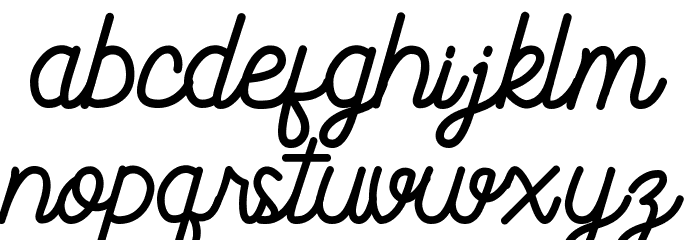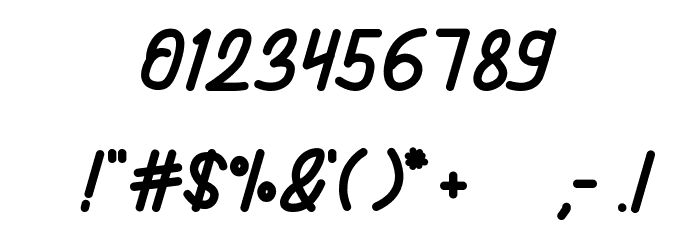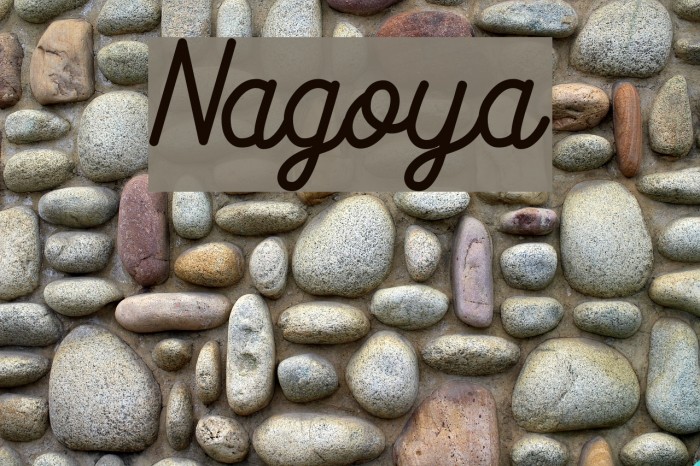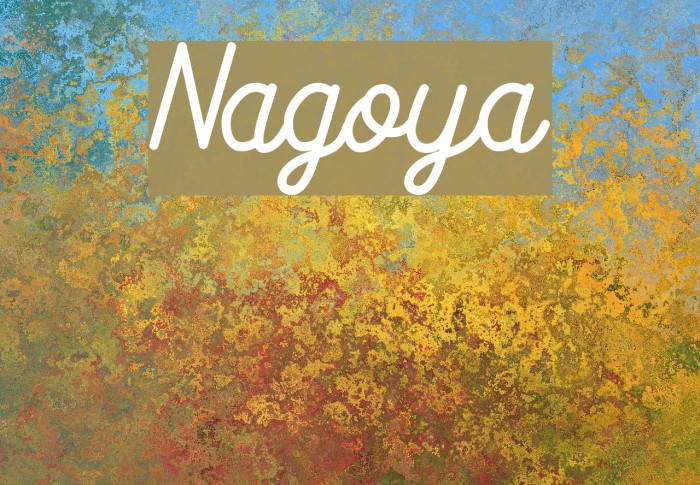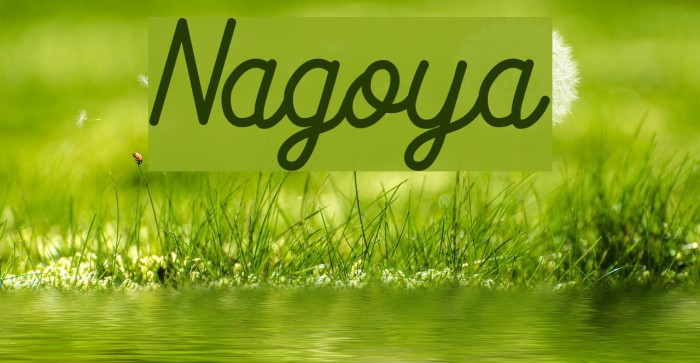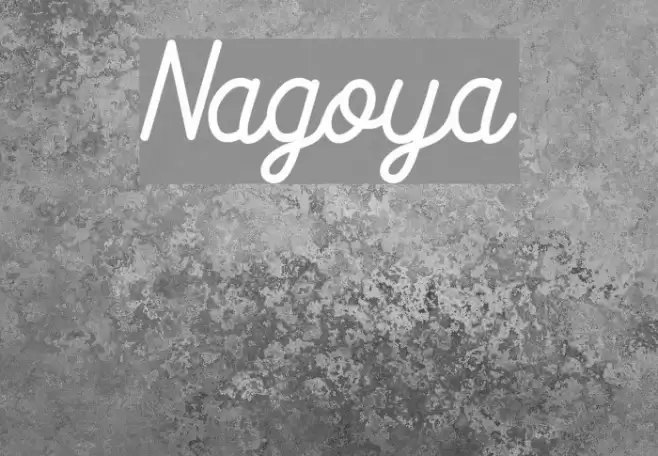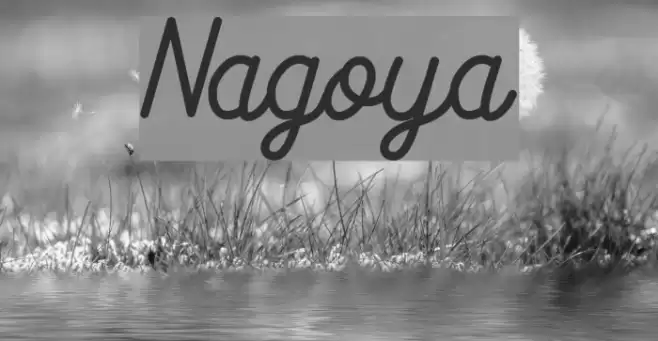
Nagoya Font
This font features a smooth, flowing script style that mimics natural handwriting. The characters are connected, giving it a cohesive and elegant appearance. The uppercase letters are slightly more formal, while the lowercase letters maintain a casual, friendly vibe. The numbers and special characters are consistent with the overall style, ensuring readability and aesthetic appeal. The strokes are uniform in thickness, providing a balanced look across all characters. This font is versatile, suitable for various design projects that require a personal touch.
A smooth, flowing script font with a natural handwriting style.
- Proposed Projects: Ideal for invitations, greeting cards, branding, and personal projects that require a handwritten touch.
- Use Case: Logos, Invitations, Greeting Cards